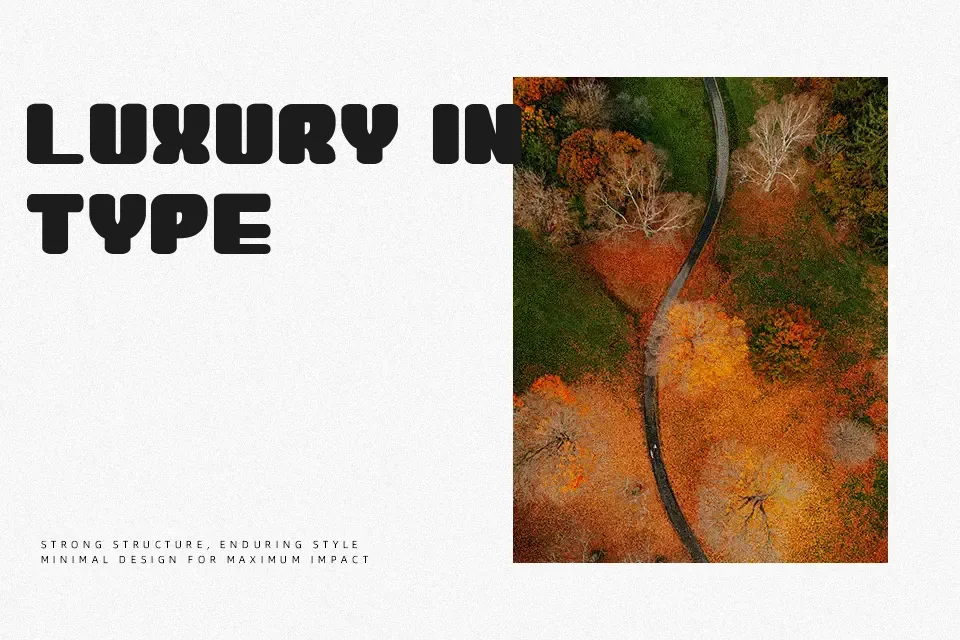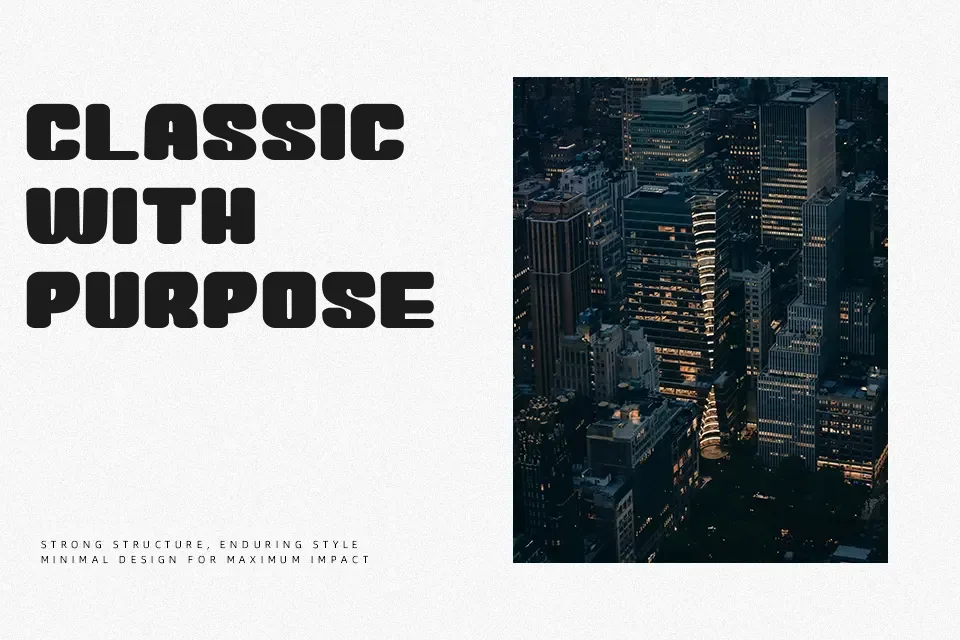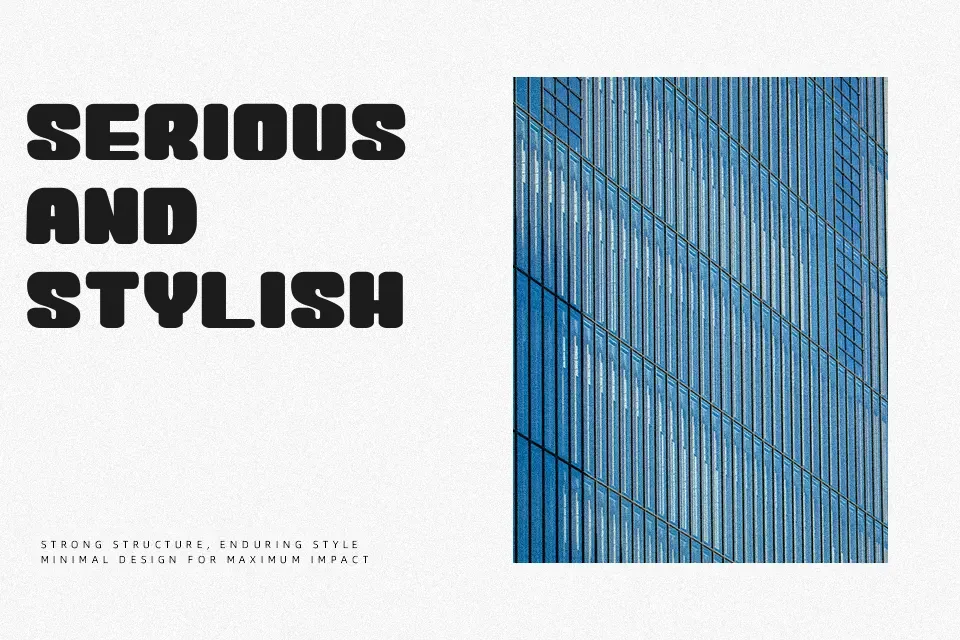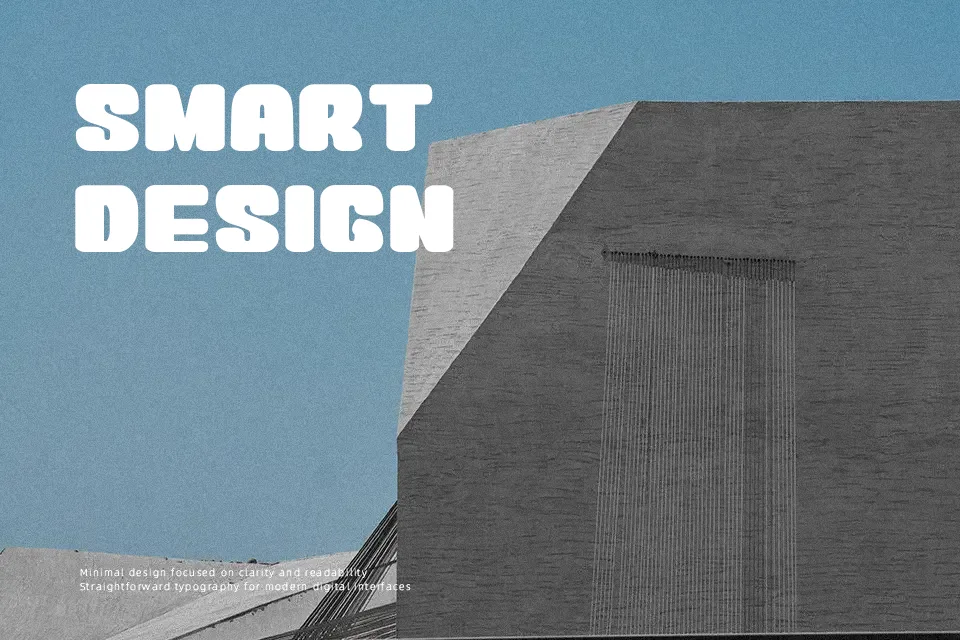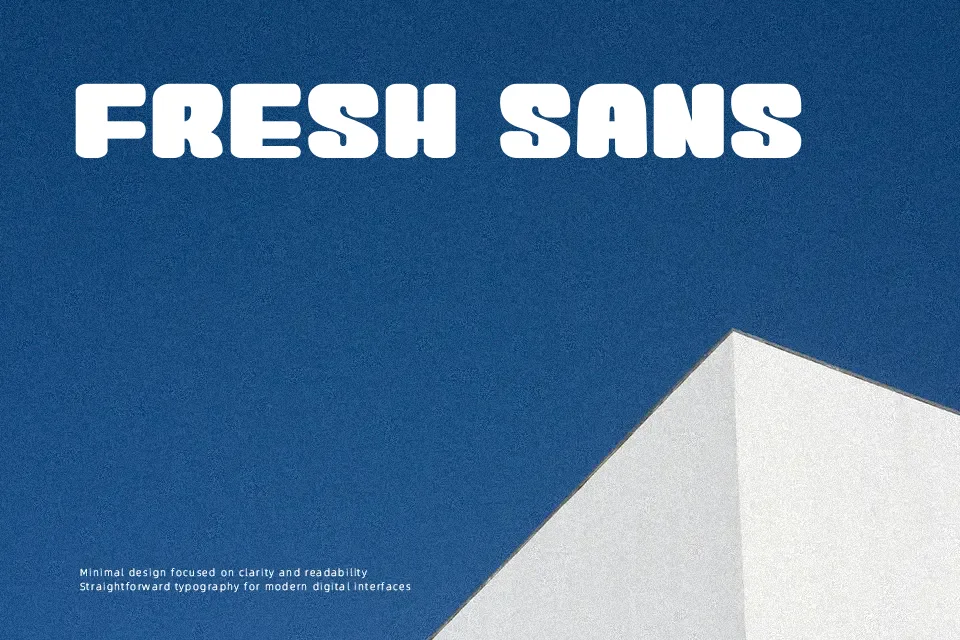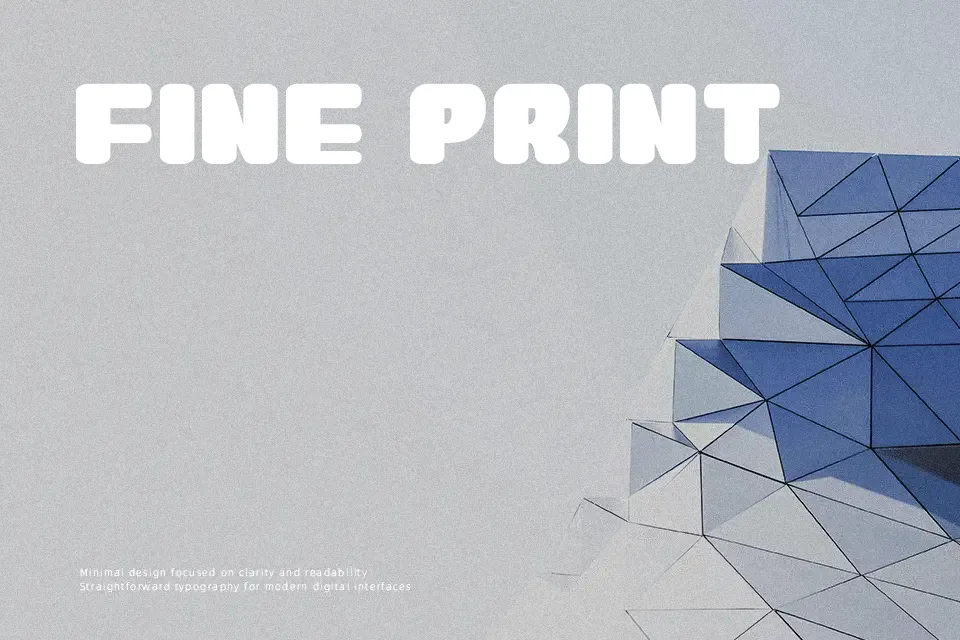
Soft Atama Font
Soft Atama Font presents an organic display structure characterized by pillowy contours, softened terminals, and generous horizontal proportions. The typeface features low stroke contrast with consistent weight across rounded curves, establishing a relaxed rhythm that thrives in large-scale typographic compositions. Moderate letter spacing preserves outer boundary recognition in bold titles, apparel graphics, and packaging labels. However, the bulbous character anatomy and condensed counter spaces diminish letter clarity when scaled down to small sizes. Consequently, the design becomes less suitable for continuous paragraphs or technical editorial spreads. The heavy, fluid forms deliver dependable visual impact when applied sparingly to brief, punchy display lines.
– retro event posters
– casual apparel graphics
– playful packaging headers
– animated title sequences
– dense paragraph text
– small mobile interface captions
– formal legal documentation
– structured spreadsheet data
Perfect for headline, kids, and logo, with a friendly and decorative style.